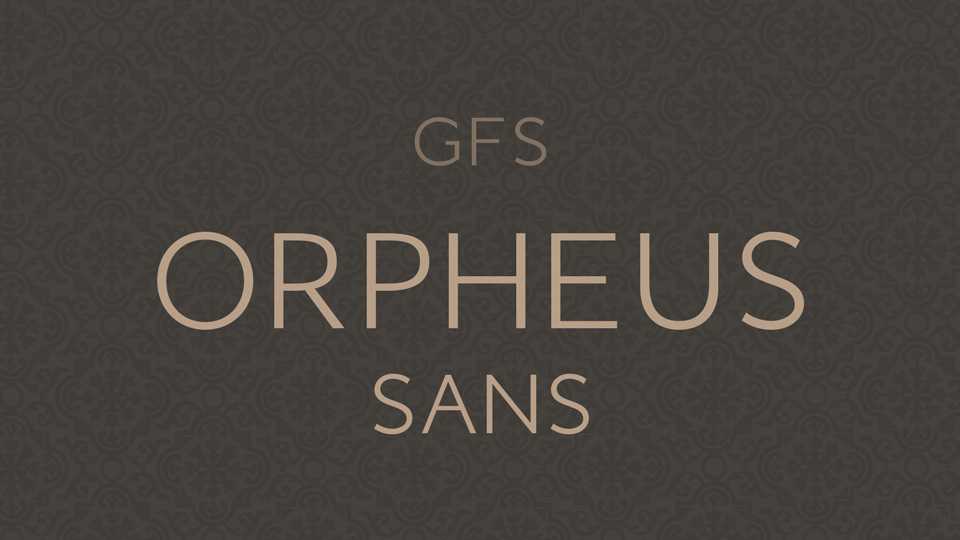
Download GFS Orpheus Sans font, a monolinear version of GFS Orpheus. It shows the innovative design ideas that were incorporated in the original typeface: ideas similar to those of a modern sans serif with clean monolinear strokes and balanced proportions.
Designer: Greek Font Society